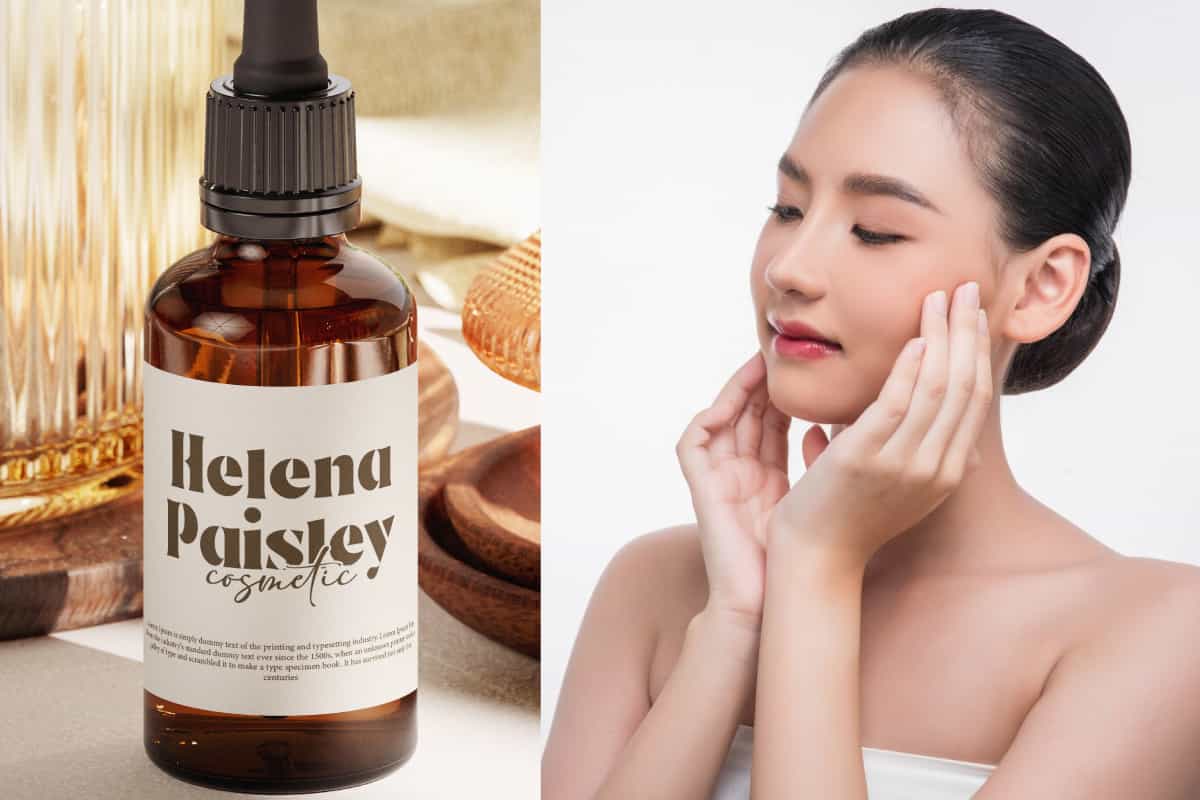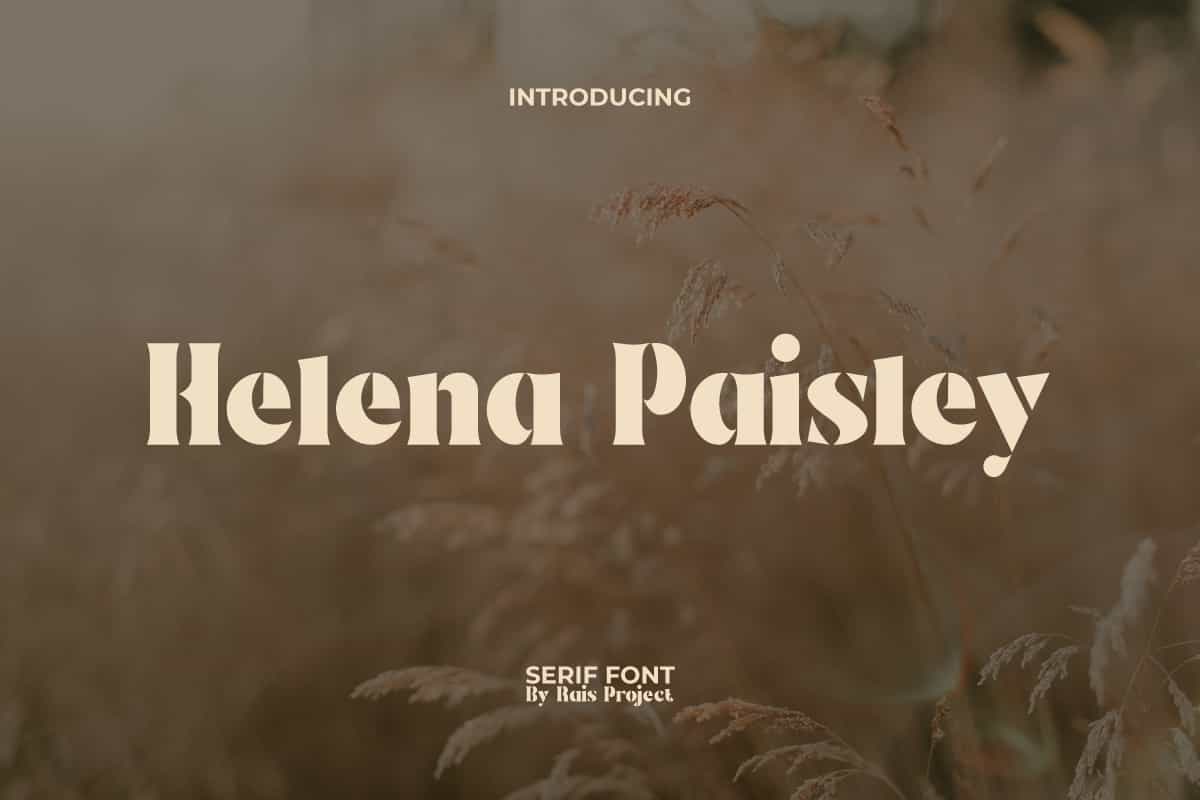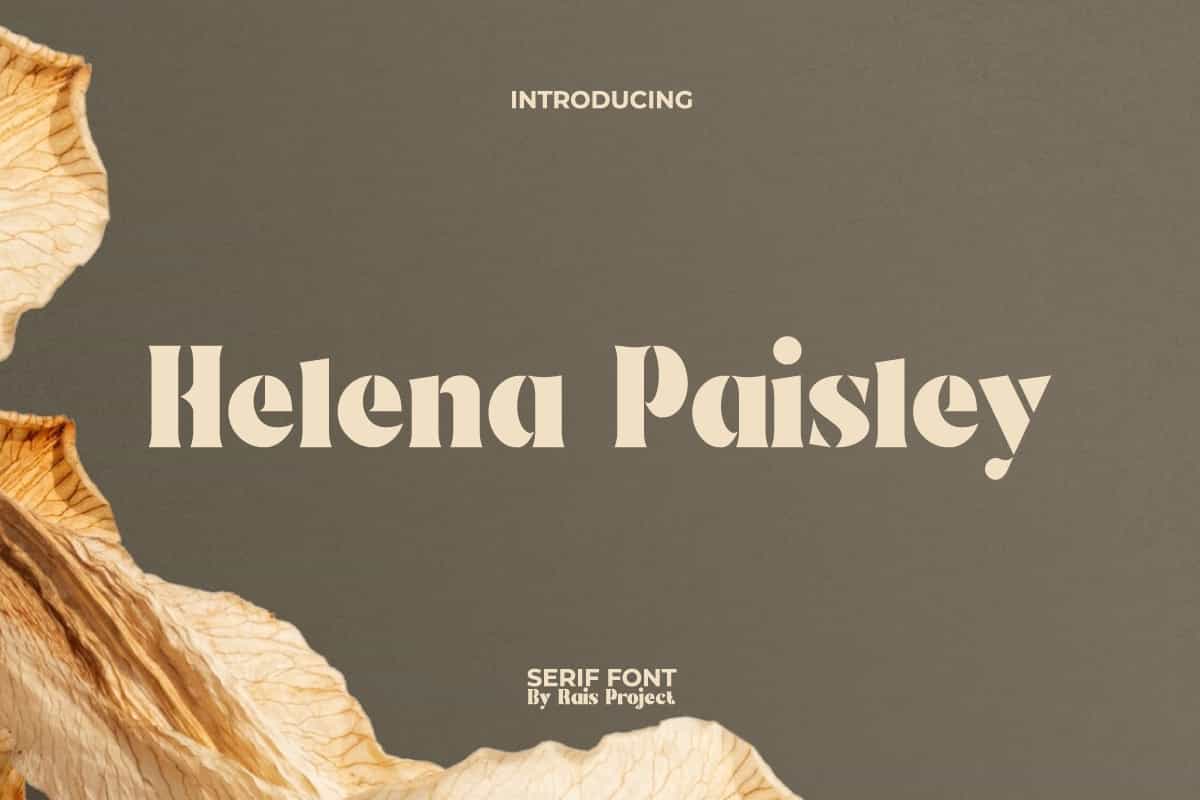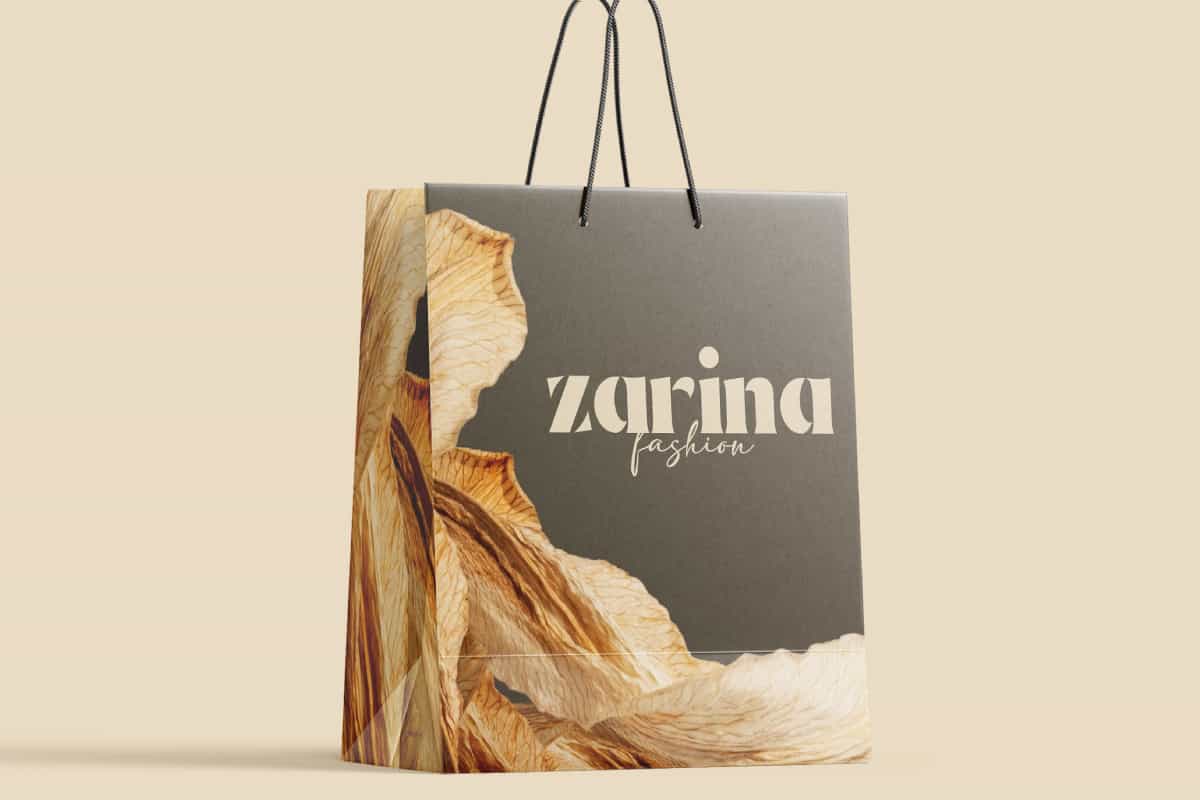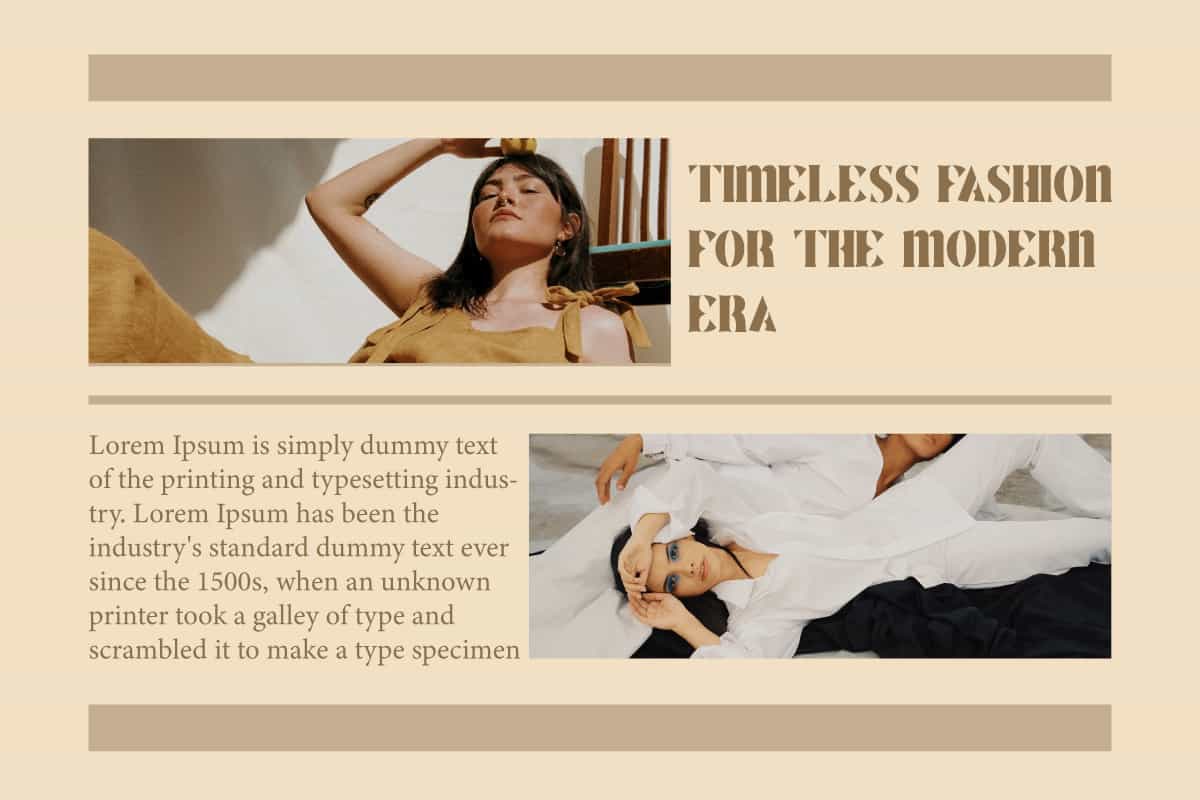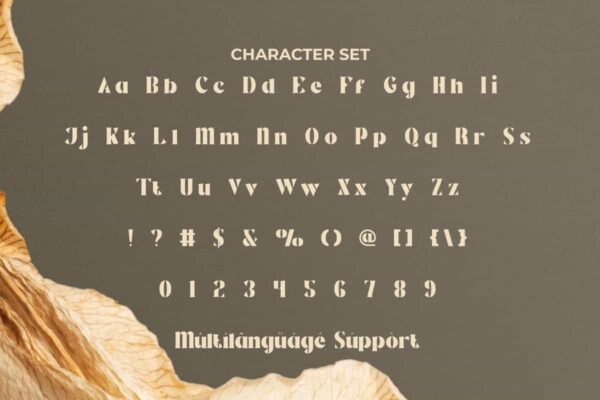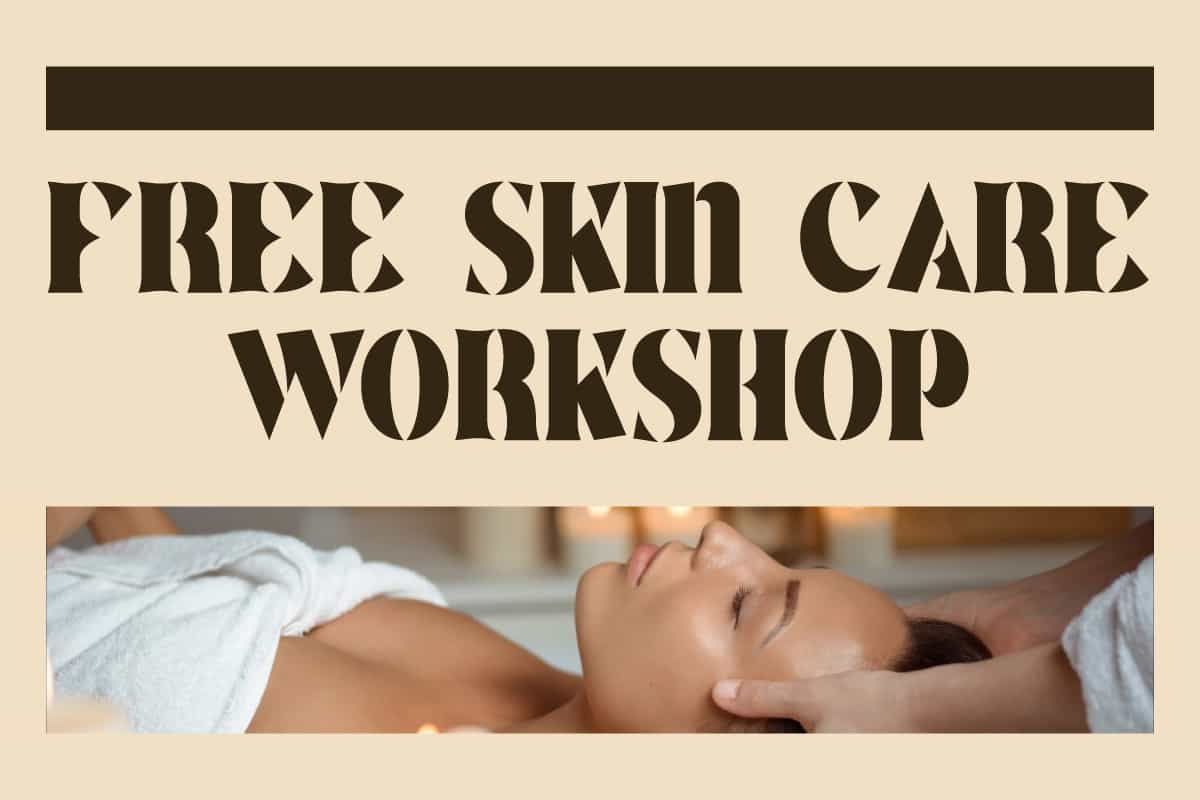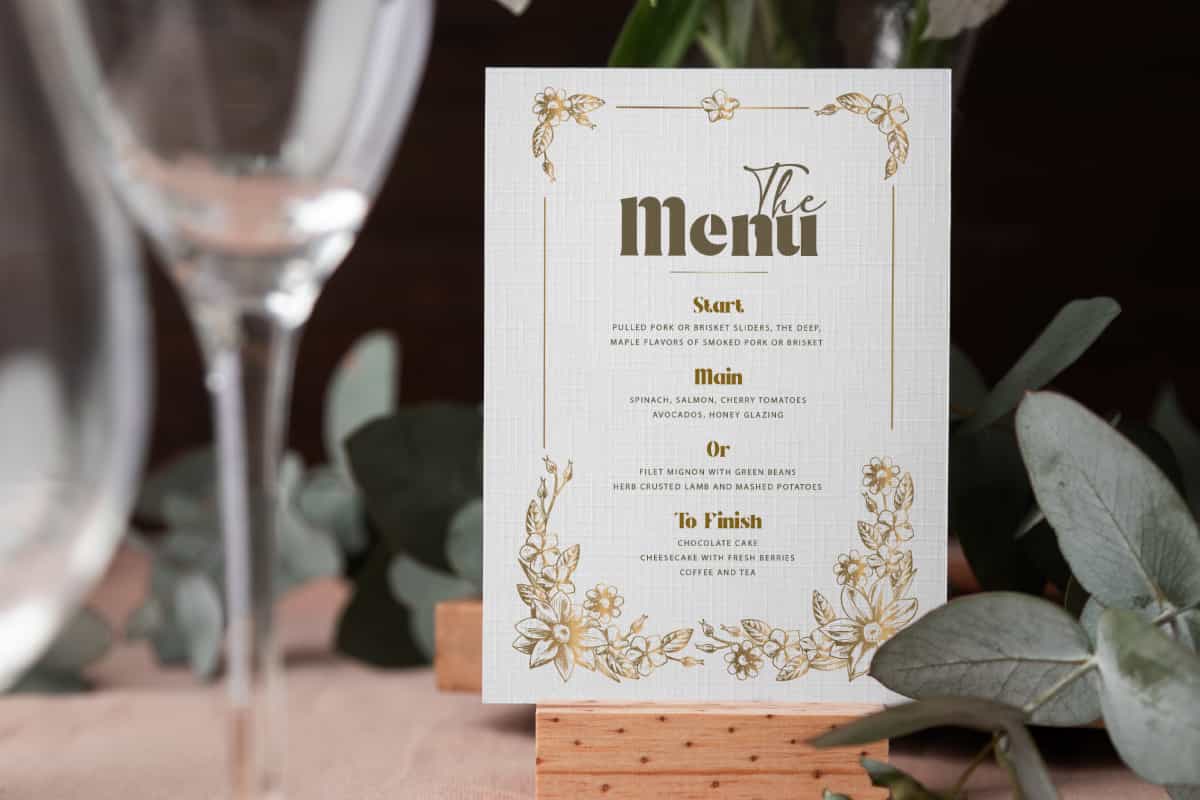
Helena Paisley Font
Helena Paisley Font is a modern unique serif font. Try use this font to make your design even more attractive!
Helena Paisley Font is a serif font with a unique shape by RaisProject. This font serif made with sharp and unique cuts, making the design even cooler. It will look good on invitation, stationery, poster, custom design, product packaging, quotes, signage, brand image, advertisement, label, marketing material, website page, and more! You can see the demo font below, input any word you want so you can see what it looks like:
Helena Paisley Font includes a full set of ALL CAPS for Uppercase and Lowercase Letters, Numerals, and large range of Punctuation. This stylish font will be suitable for various industries, such as fashion, jewelry, cafe, event or wedding organizer, photography, printing, publishing, etc. What you get: